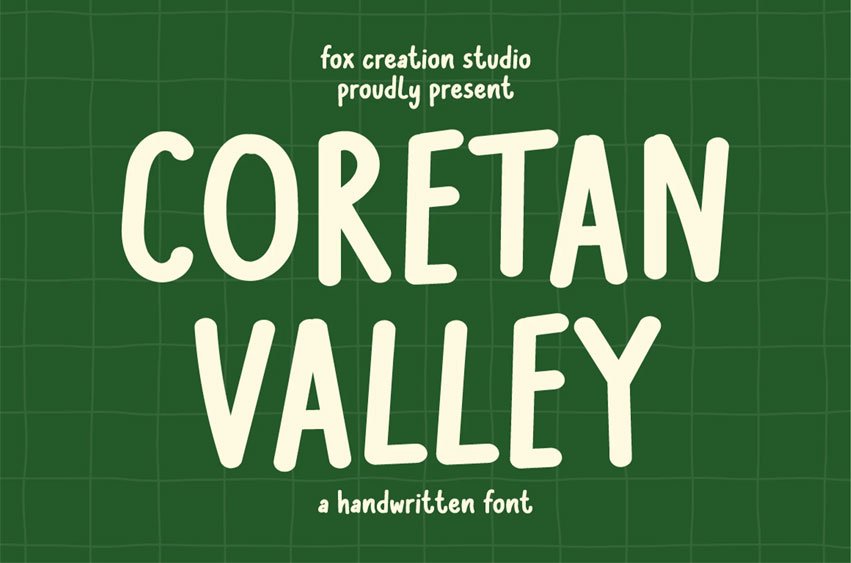
Coretan Valley Font is Soulful Handwritten Font Full of Charm! Looking for a font that feels personal, simple, and authentic? Meet Coretan Valley, a handmade font designed to bring a warm and soulful touch to your creative projects!
Inspired by natural pen strokes and clean handwriting, Coretan Valley features organic shapes and a friendly personality that makes your designs feel more human. Whether you’re working on greeting cards, branding, social media quotes, or nursery designs, this typeface adds that extra spark of sincerity.
With its clean lines and handmade feel, Coretan Valley is perfect for designers who love simple yet expressive typography. The well-crafted letterforms ensure seamless readability while maintaining its distinctive, soulful appeal.